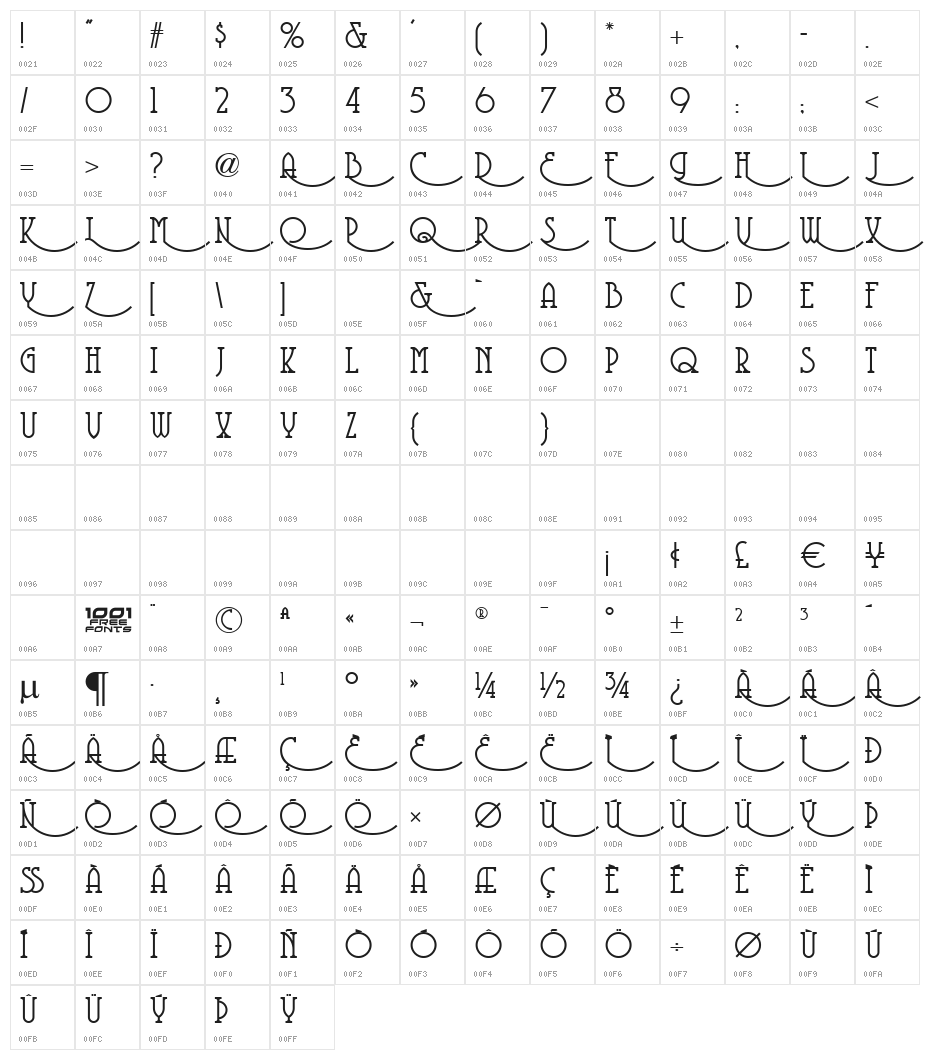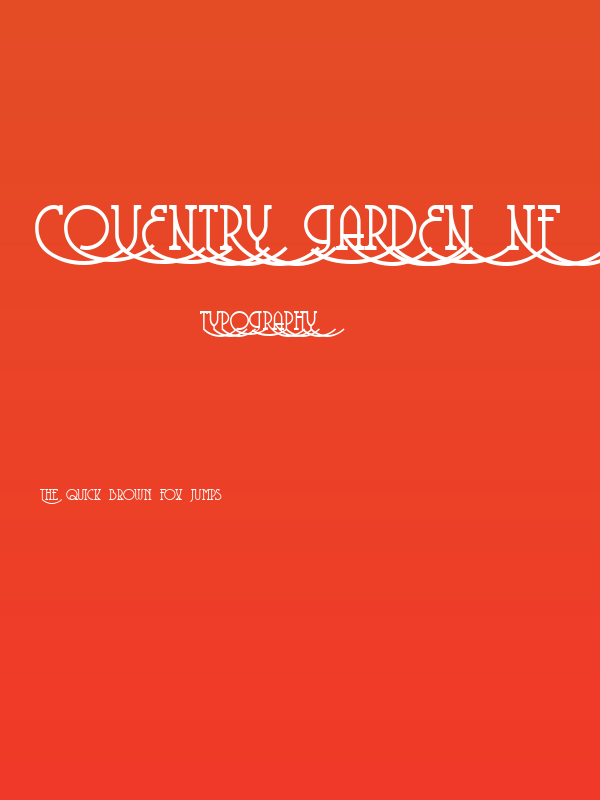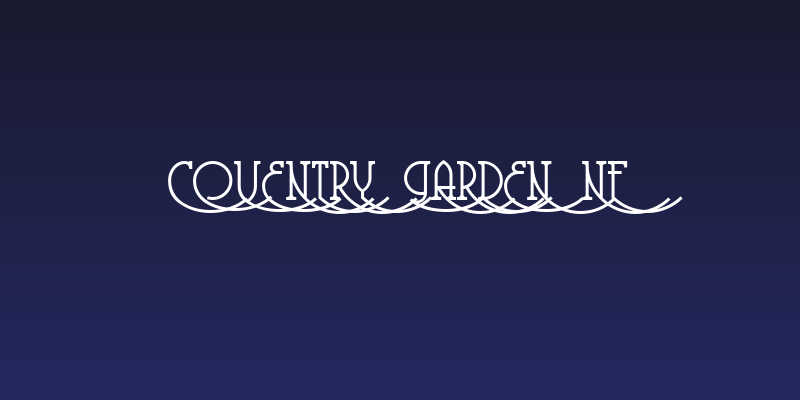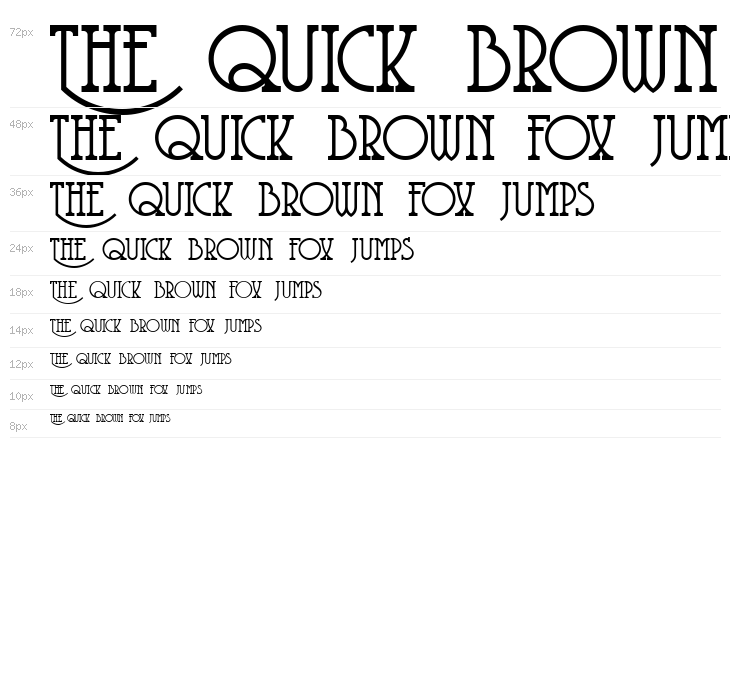
Coventry Garden NF Font
Coventry Garden NF Description
This font features a unique blend of decorative and classic elements, characterized by its intricate swirls and loops that extend from the serifs. The uppercase letters are particularly ornate, with elaborate curves that create a sense of elegance and sophistication. The lowercase letters maintain a more traditional serif style, providing a balanced contrast to the decorative uppercase. Numbers and special characters follow the same stylistic cues, ensuring consistency across all glyphs. The font's overall appearance is both artistic and formal, making it suitable for projects that require a touch of vintage charm.
| Proposed Projects | Ideal for wedding invitations, vintage-themed branding, and decorative headlines. |